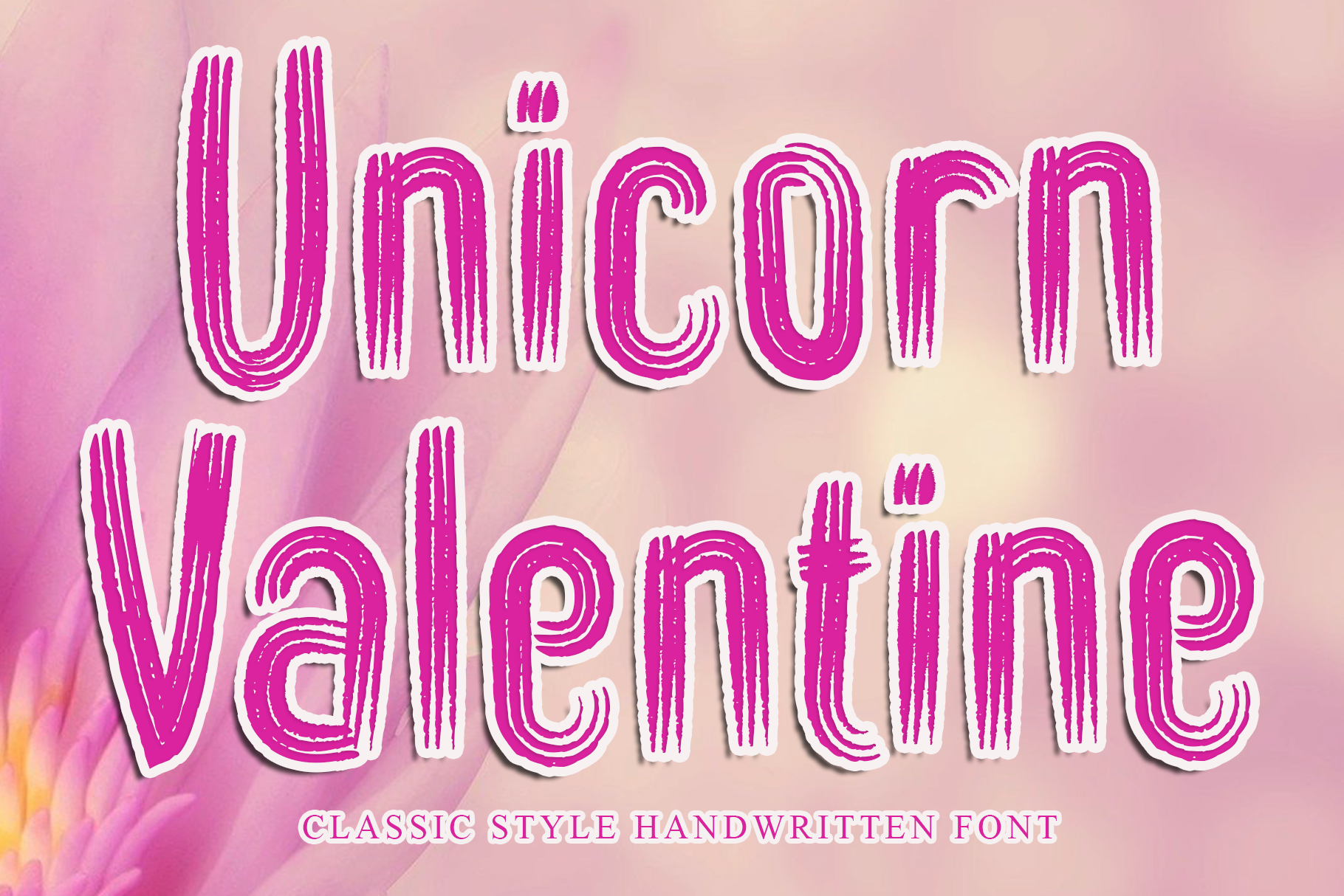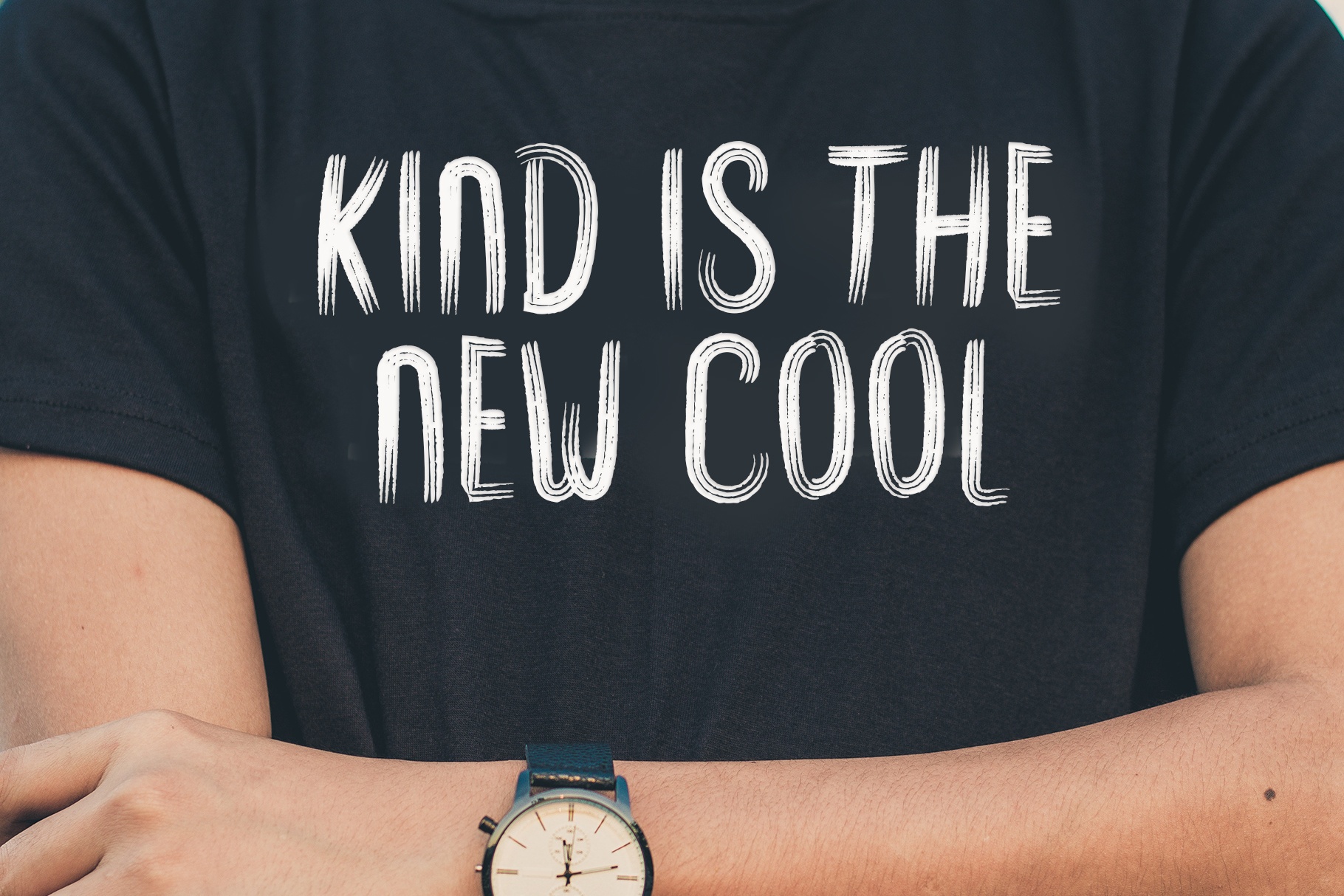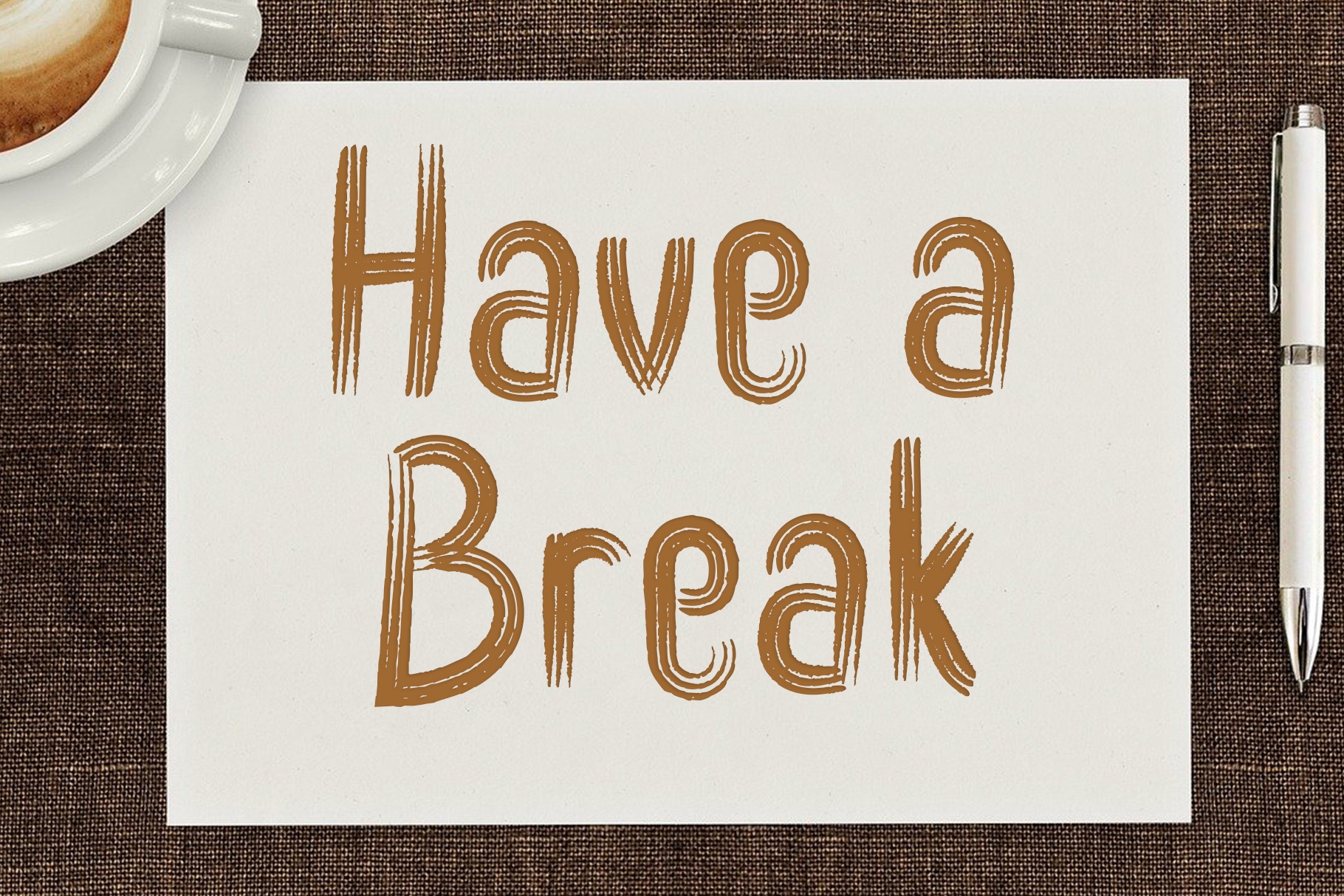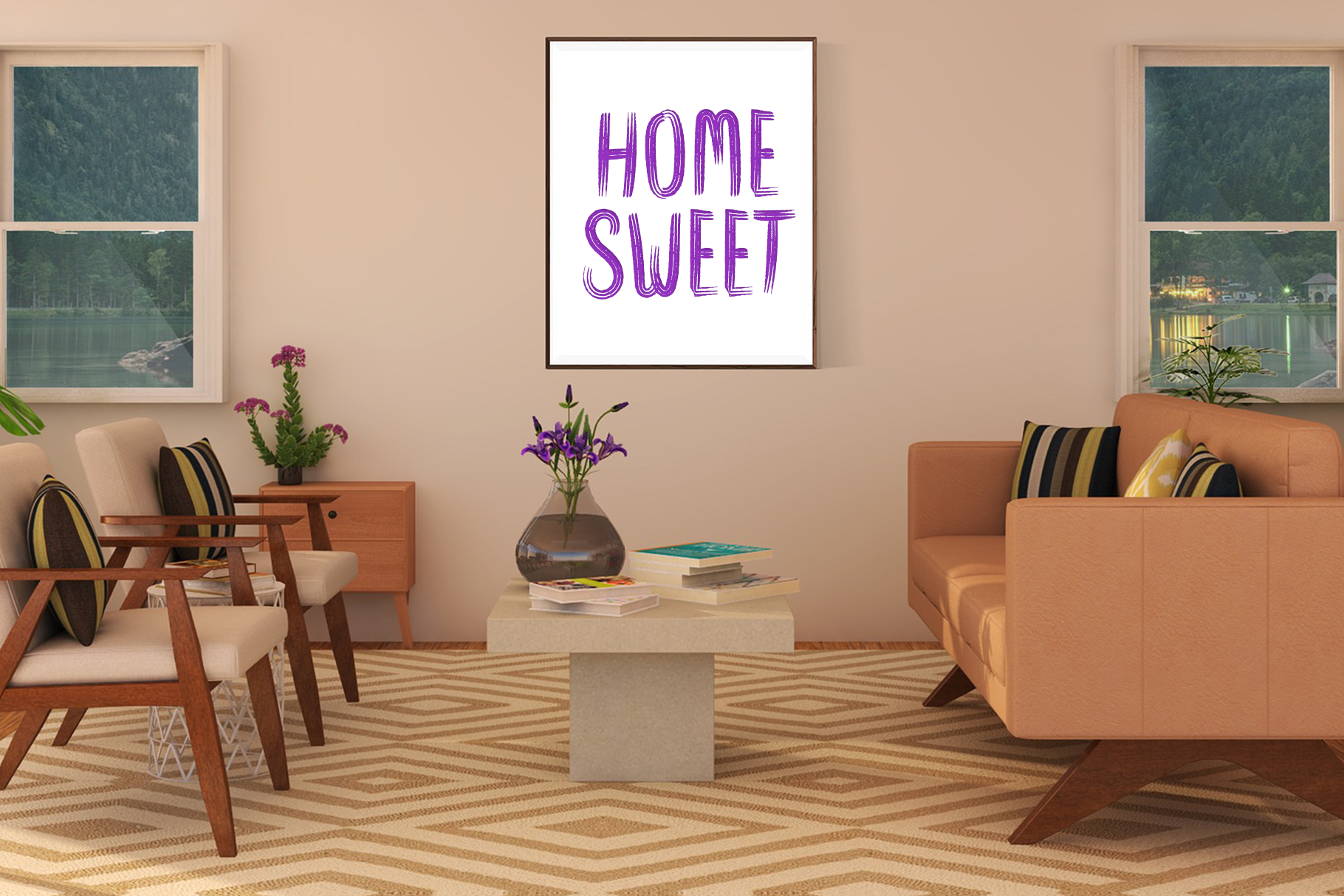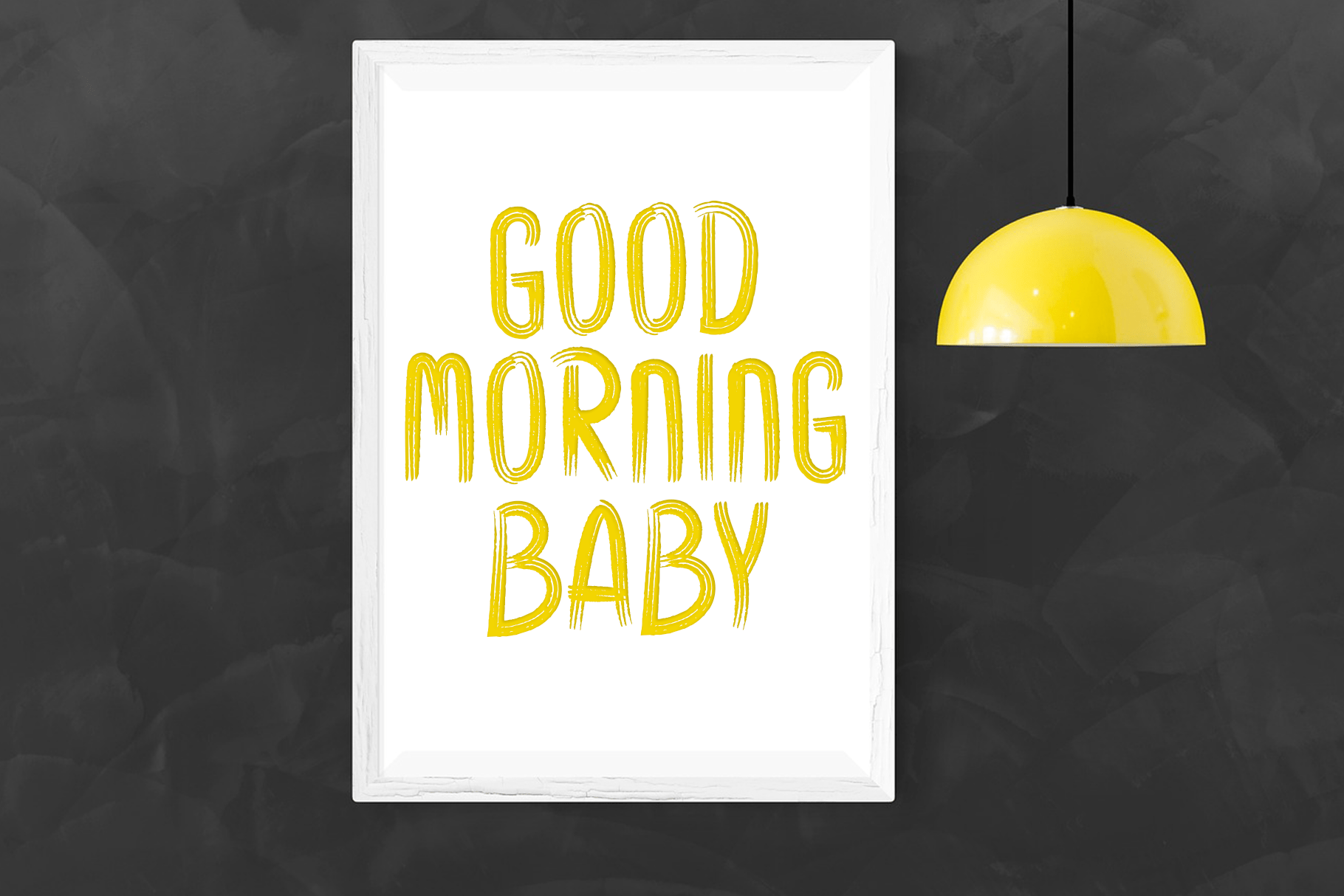
Unicorn Valentine is a unique and elegant font. Looks great on wedding invitations, greeting cards, billboards, logos, business cards, and any other design that requires a handwritten touch. This font features a varied baseline, handcrafted that creates spectacular creations and will make your designs look more realistic.
Unicorn Valentine